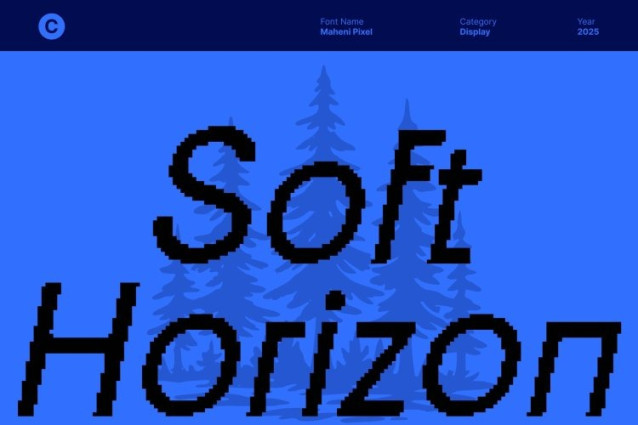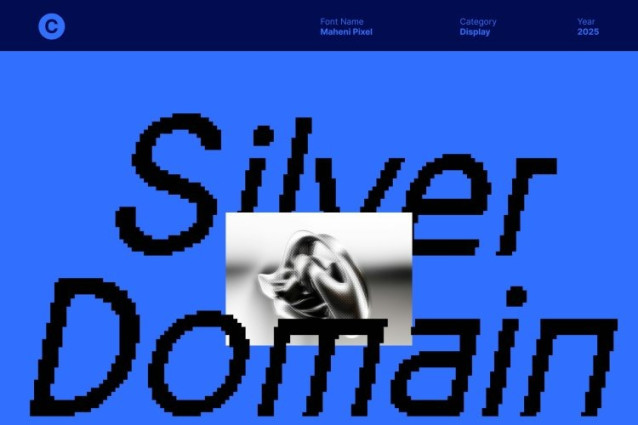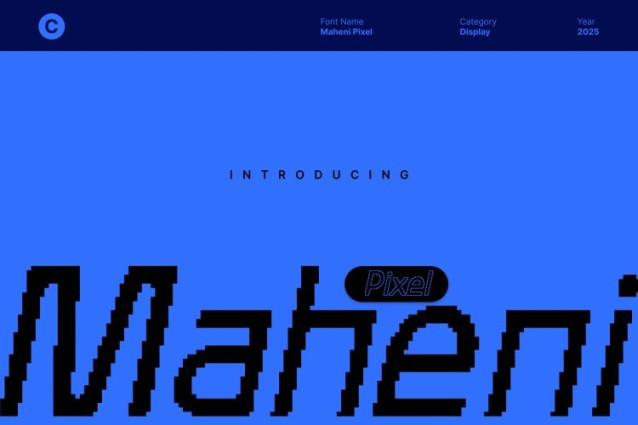
Maheni Pixel Font This is a stylish and experimental brutalist sans serif font designed to break conventions. Its sharp edges, rigid forms, and unconventional geometry create a strong, striking presence ideal for editorial design, bold posters, and graphic-heavy layouts. Every character radiates confidence, structure, and modern attitude.
Pixel Texture for a Distinct Digital Edge
Enhanced with a pixel-inspired texture, this font introduces a digital twist to its raw brutalist construction. The pixel effect adds depth, character, and a futuristic 8-bit flavor making the font perfect for digital branding, online campaigns, and creative projects that embrace a tech-forward aesthetic.
Strong Visual Impact with Artistic Uniqueness
Its uncompromising shapes and angular precision deliver powerful visual tension, ensuring that every title or headline grabs attention instantly. The mix of brutalist rigidity with pixel artistry elevates the font’s expressiveness, making it ideal for designers who want to communicate bold ideas with a modern, artistic edge.
Perfect for Editorials, Posters, and Modern Digital Design
This font thrives in environments where creativity and experimentation take center stage. Use it for high-impact editorials, cutting-edge posters, innovative branding, or digital-focused projects seeking a blend of strong brutalist identity and contemporary pixel craftsmanship. It brings style, and a memorable graphic presence to any design.